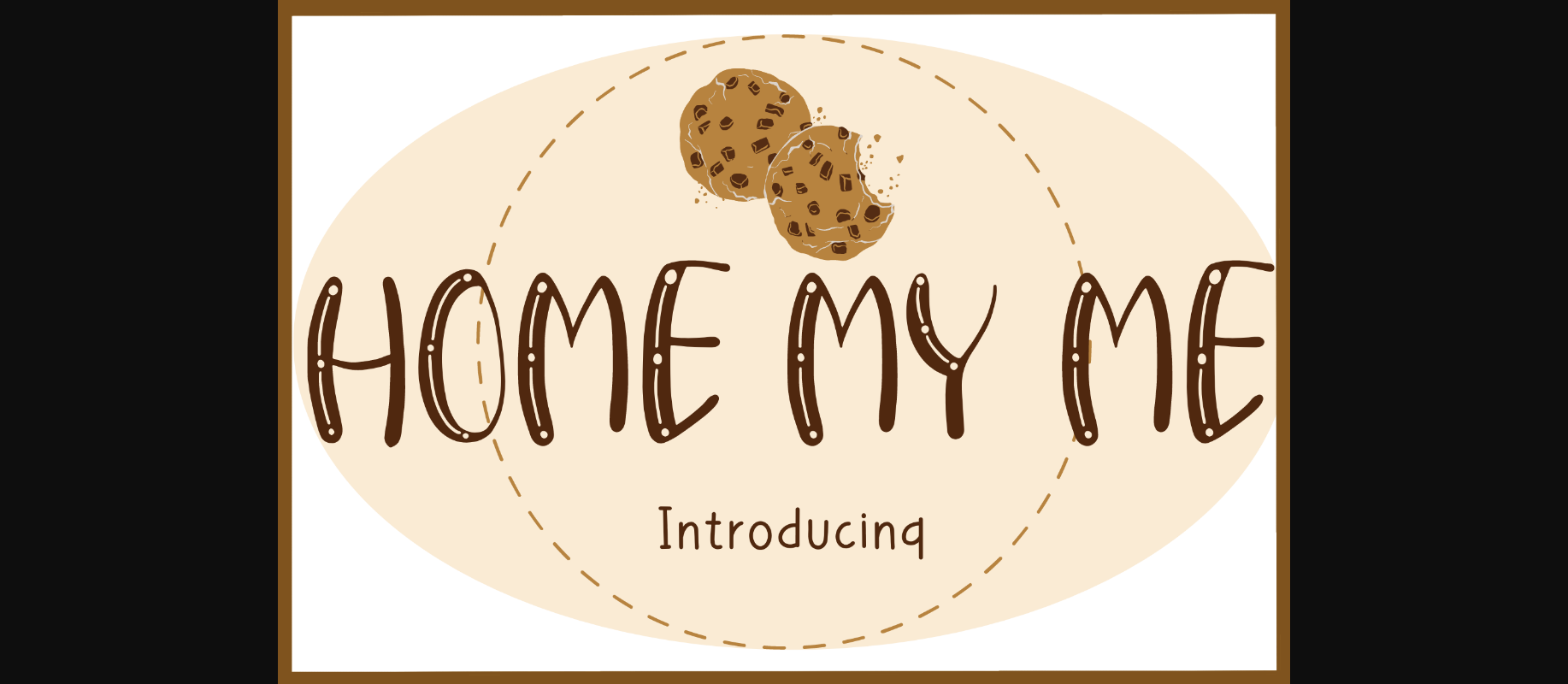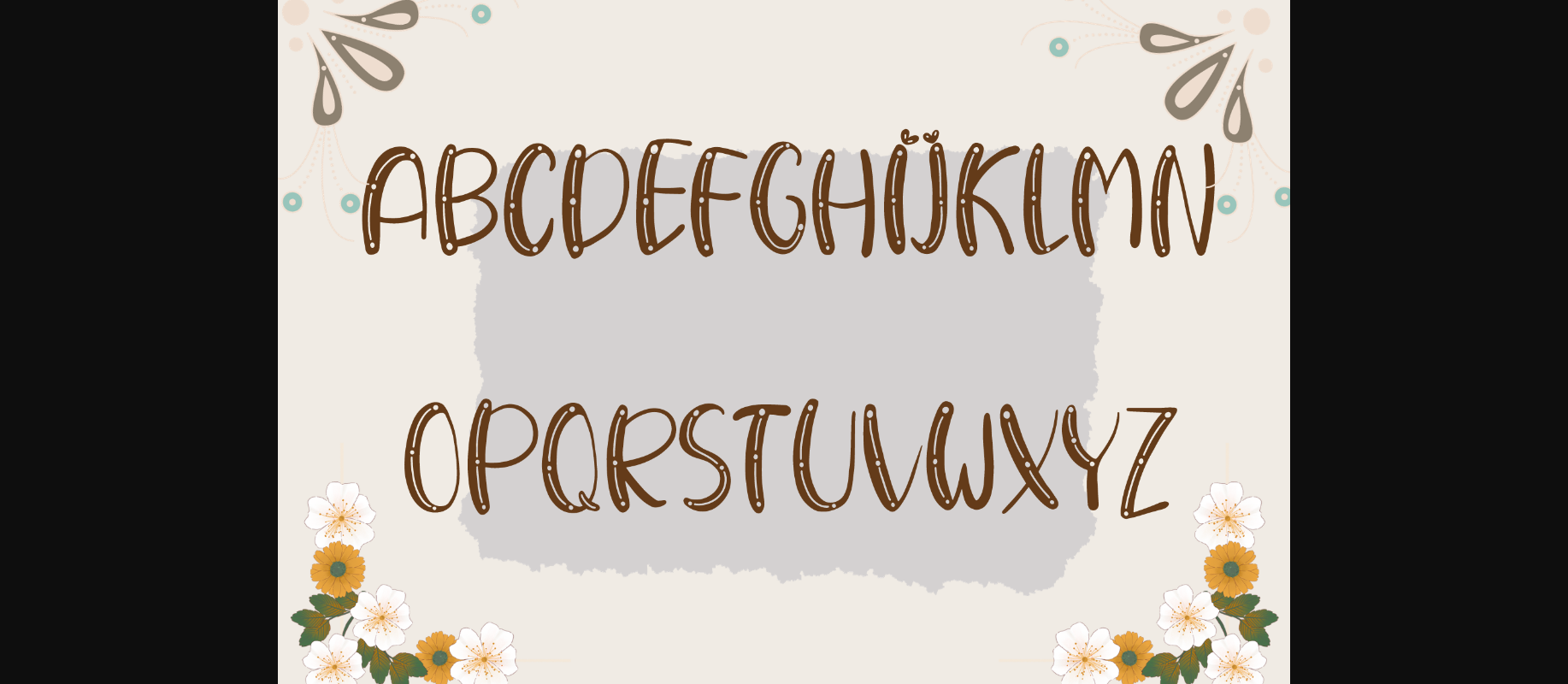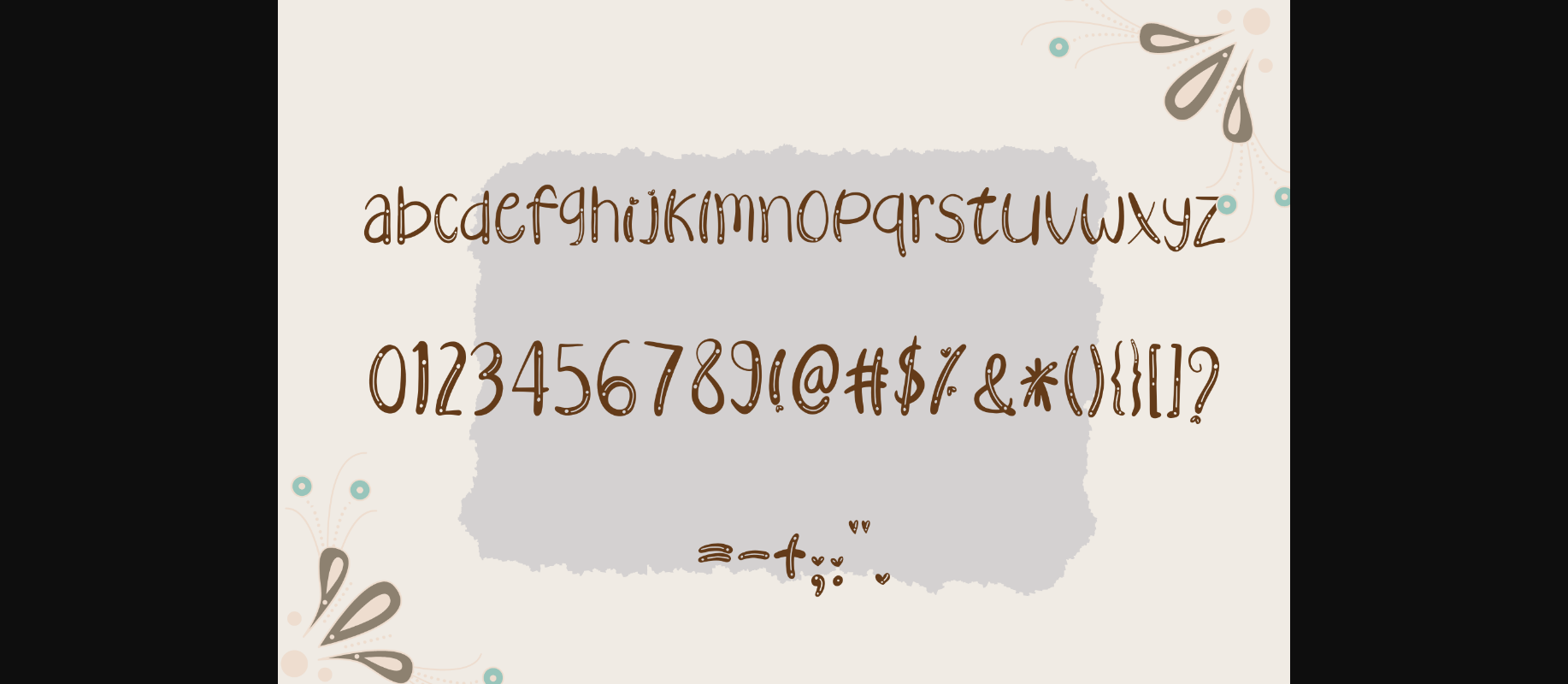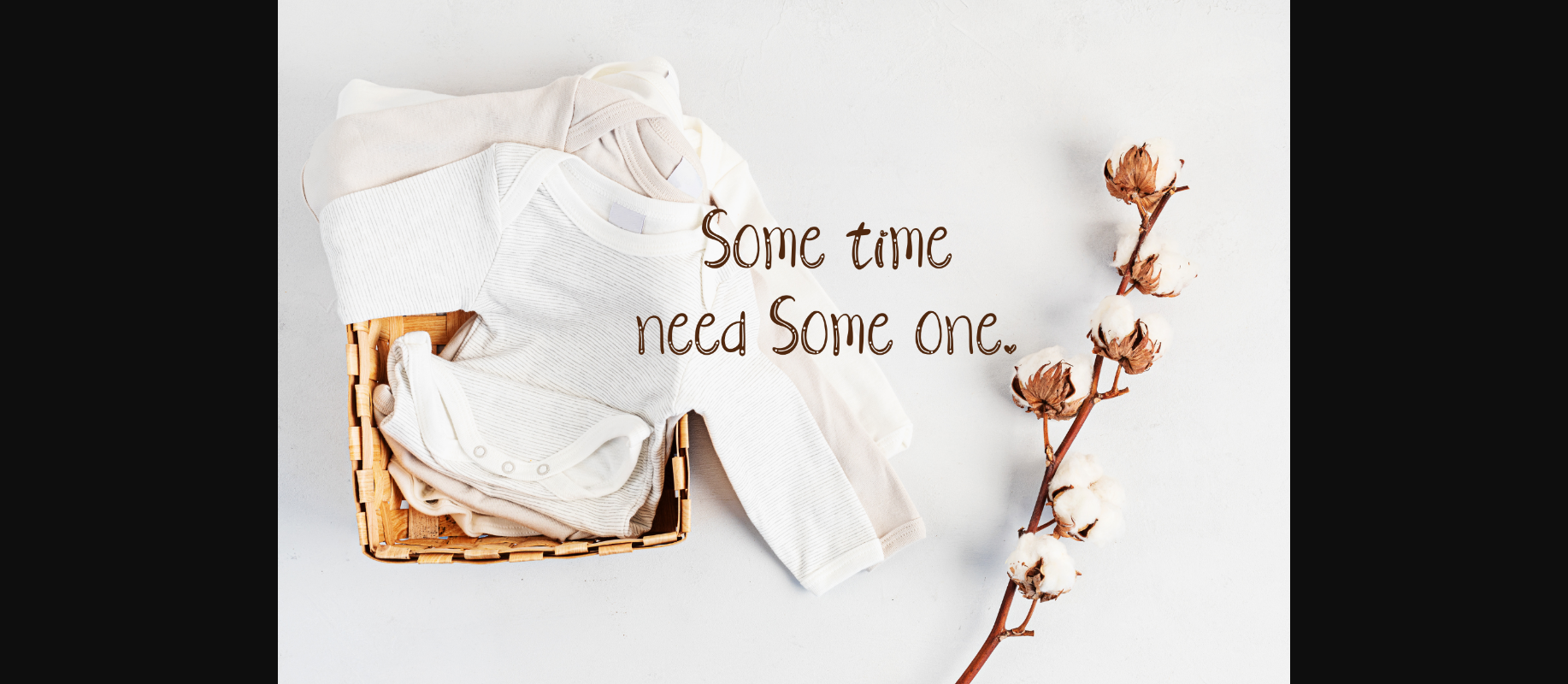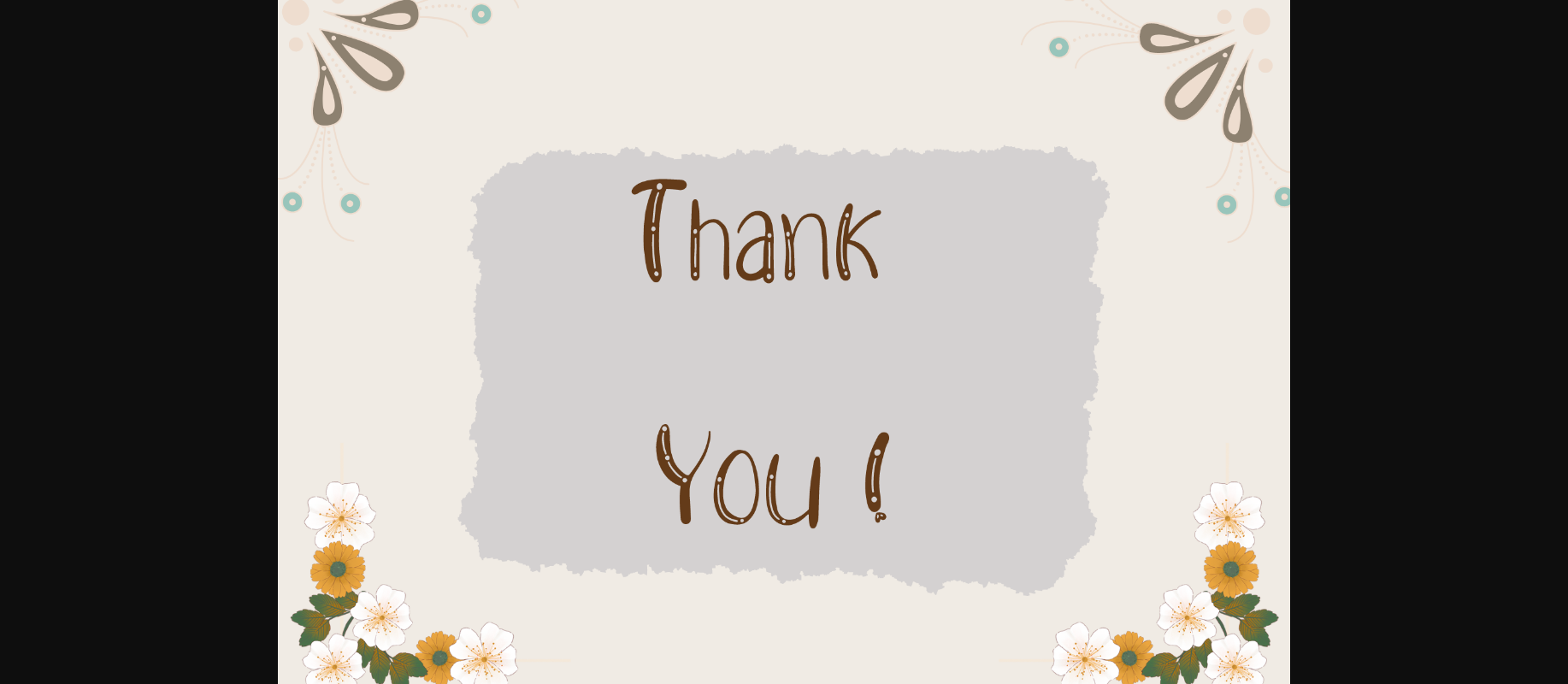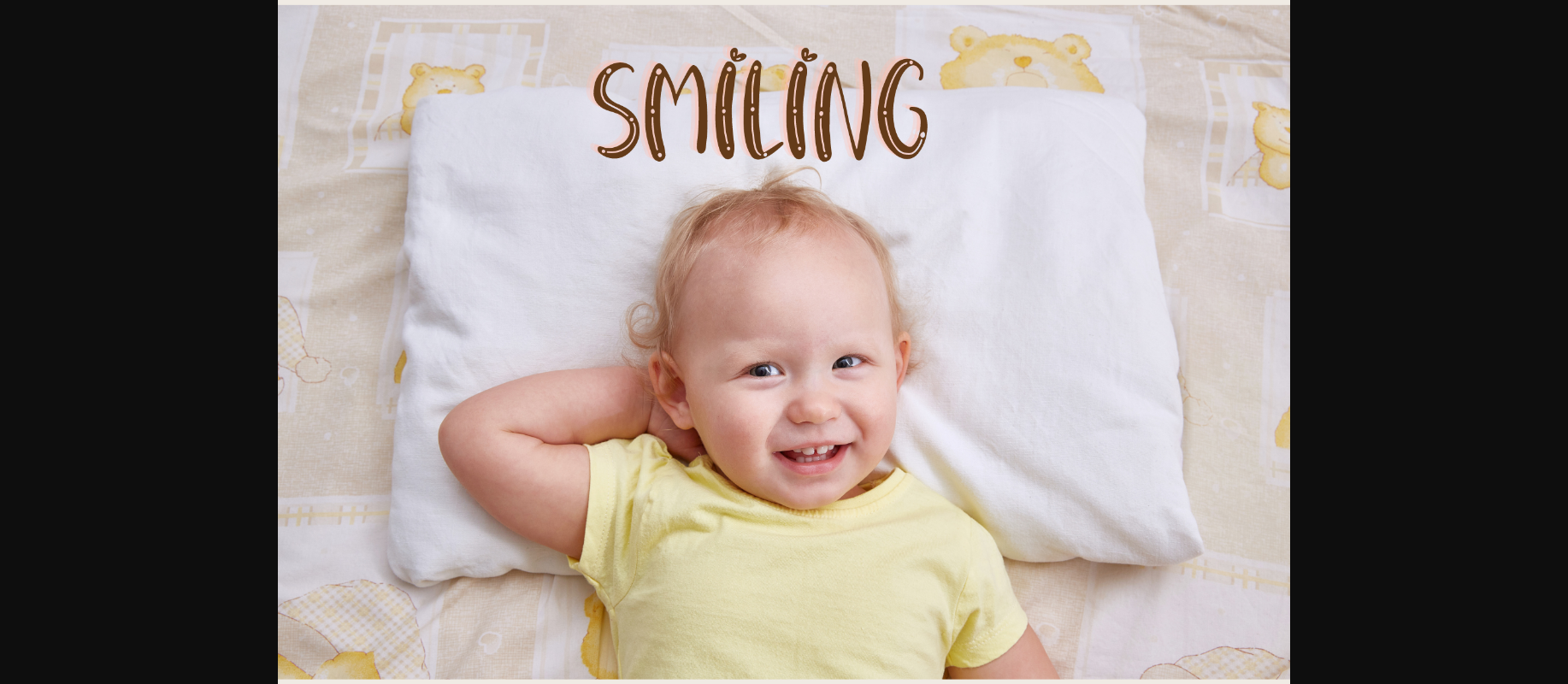
HomeDecorative FontsHome My Me Font Decorative Fonts Home My Me Font FacebookXPinterestWhatsApp 1 of 8 ... Home My Me Font Poster 2... Home My Me Font Poster 3... Home My Me Font Poster 4... Home My Me Font Poster 5... Home My Me Font Poster 6... Home My Me Font Poster 7... Home My Me Font Poster 8... About Home My Me Font Home My Me is a super cute decorative font with a simple style suitable for teaching. Use it to decorate presentations, educational projects, advertising, illustrations, or anything that needs creative typography. DOWNLOAD NOW People also explored Christmas Ball Font Hilliamoon Font Garlic Shrimp Duo Font T-Shirt Mockup Volume 25 Romantic Valentine Font Wings of Fire Font Autumn Signature Font Epstein Font Bermont Font 406 0 TagsHome My Me Font Previous articleDrawing Lovely FontNext articleValentine\’s Font LEAVE A REPLY Cancel reply Comment: Please enter your comment! Name:* Please enter your name here Email:* You have entered an incorrect email address! Please enter your email address here Website: Save my name, email, and website in this browser for the next time I comment. Personal Use Free Rembank Personal Use Free Read more about this font Fat Max Personal Use Free Read more about this font William Personal Use Free Read more about this font Dead Block Personal Use Free Read more about this font BLOG Free vs Paid Fonts: Why Investing in Premium Fonts Is Worth It Free vs Paid Fonts: Why Premium Fonts Are Worth It in 2025 The debate of free vs paid fonts continues in the design world. While... 5 Fonts That Will Dominate Design Trends in 2026 Best Fonts for YouTube Videos: Make Your Thumbnails Stand Out Modern Sans-Serif Fonts That Brands Love in 2025